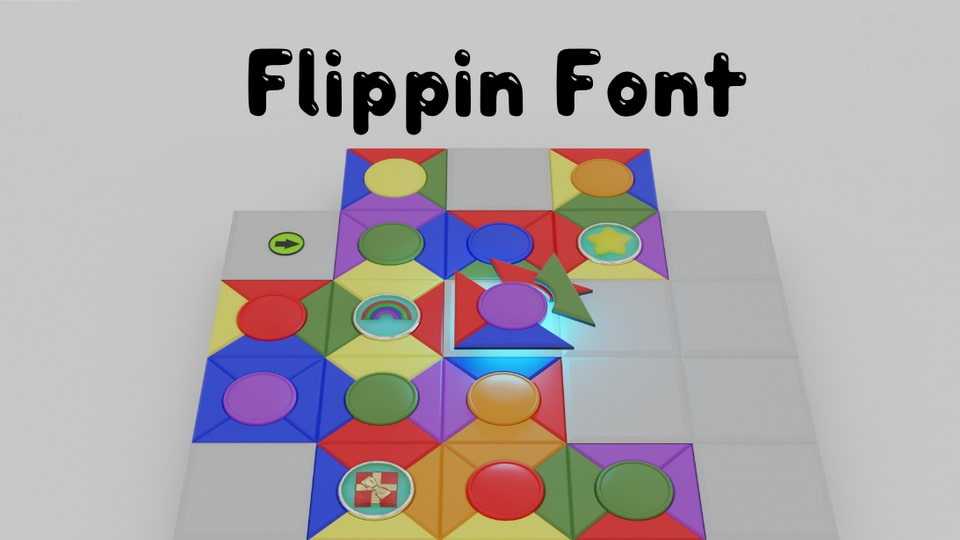
Download Flippin font, a simple, basic, fun typeface that is easy to read, designed this font to use in the game “Flippin’ Tiles!”. Flippin font features clean, smooth letterforms with a touch of hand-drawn charm.